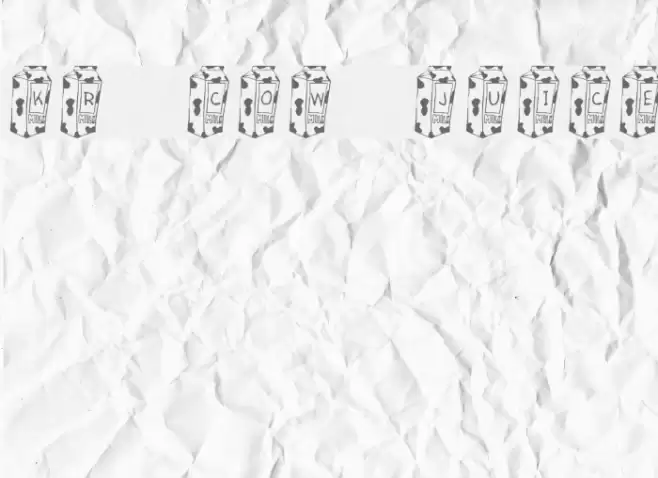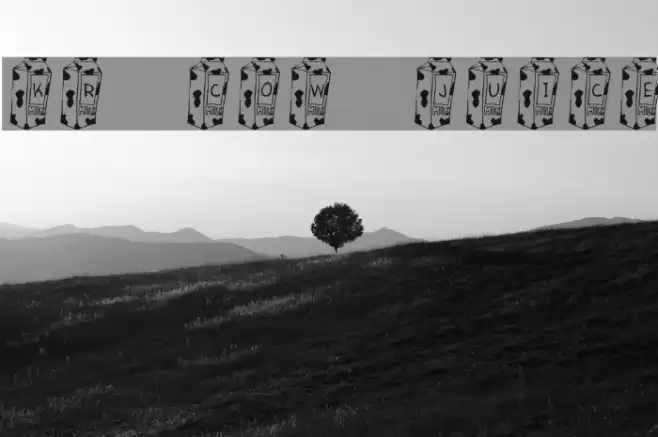
KR Cow Juice Font
KR Cow Juice Description
This playful and whimsical font is designed to resemble milk cartons, with each character encased in a carton shape. The letters are bold and cartoonish, featuring a hand-drawn style that adds a sense of fun and creativity. The unique design makes it stand out, with each letter having a distinct personality while maintaining consistency across the set. The font includes both uppercase and lowercase letters, numbers, and a selection of special characters, all following the same carton theme. Its quirky and imaginative style is perfect for projects that require a light-hearted and engaging visual element.
A playful, milk carton-themed font with a hand-drawn, cartoonish style from Uncategorized fonts.
- Proposed Projects: Ideal for children's book covers, playful branding, themed party invitations, and creative posters.
- Overall Style: Whimsical, Playful